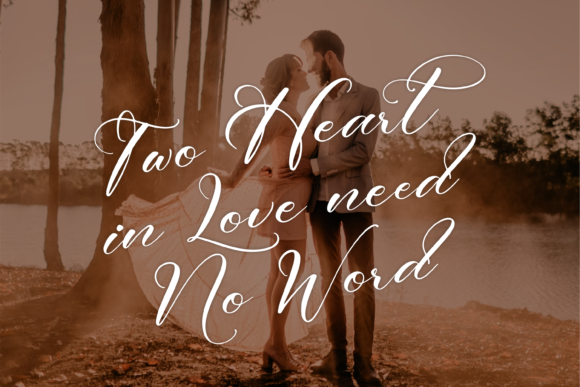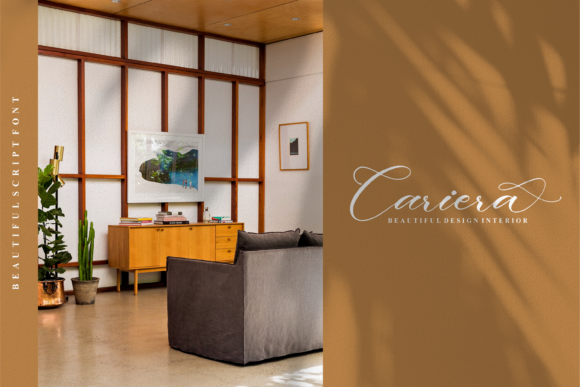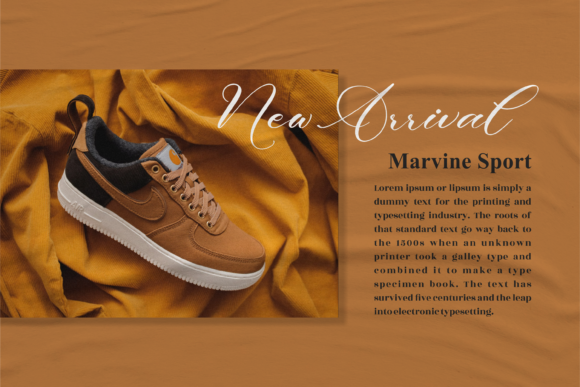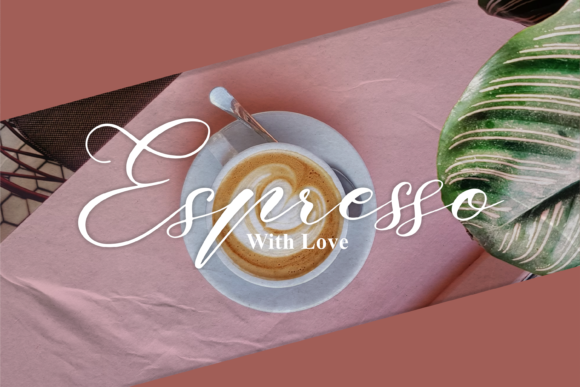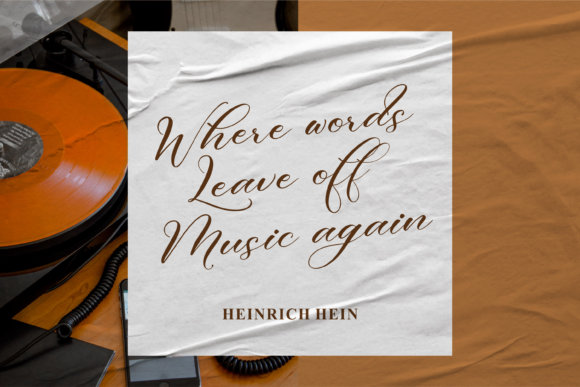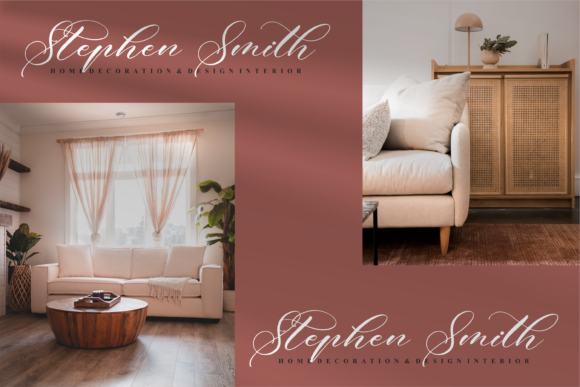
Introduction to Salysta Victoria Font
Salysta Victoria is an elegant script font with a contemporary atmosphere and impeccable form, inspired by timeless classic calligraphy.
Key Features of Salysta Victoria Font
Salysta Victoria Font offers exceptional quality and versatility, making it a valuable addition to your design toolkit. Whether you’re creating for personal projects or commercial use, Salysta Victoria Font delivers professional results.